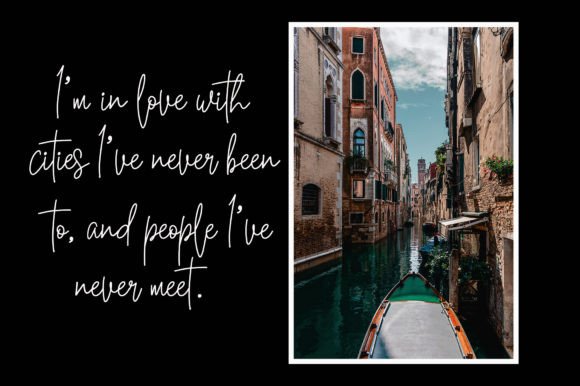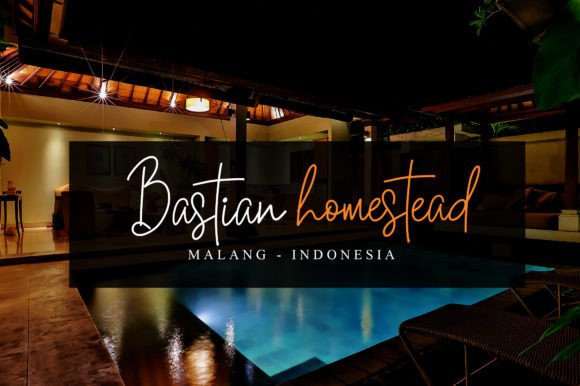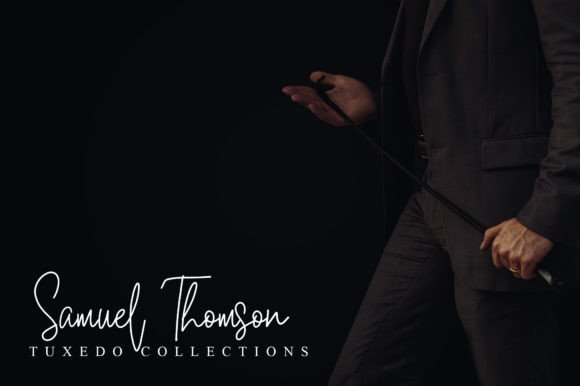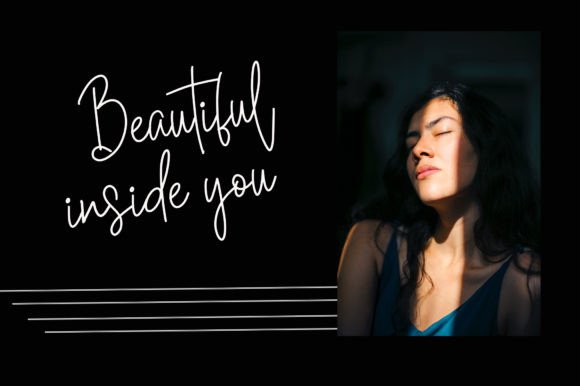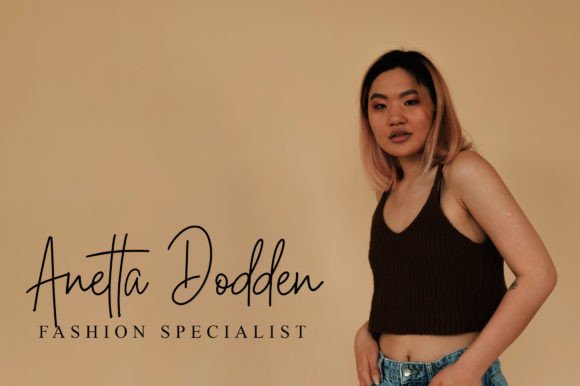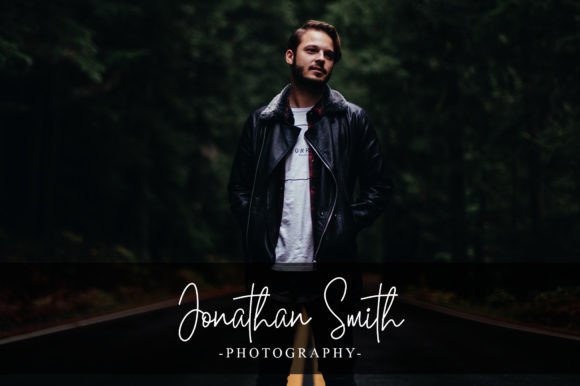
The Perfect Touch of Elegance: Discovering the Father Signature Font
As designers, we’ve all been there – staring at a blank canvas, struggling to find the perfect font to bring our vision to life. It’s that moment of frustration, followed by a spark of inspiration, when we stumble upon the perfect font that elevates our design from good to great. For me, that moment came when I discovered the Father Signature Font.
This delicate, elegant, and flowing handwritten font is a game-changer for designers. With its chic and well-designed characters, it’s the perfect addition to any design project. Whether you’re creating a wedding invitation, a branding package, or a marketing campaign, the Father Signature Font is sure to bring a touch of sophistication and class. And with its PUA encoding, accessing all of the glyphs and swashes is a breeze!
Father Signature Font Key Features
- Font Style: A unique, handwritten font designed to resemble a father’s signature, conveying warmth and familiarity.
- Characteristics: Features a mix of cursive and print elements, with subtle imperfections and variations that evoke a sense of authenticity and personality.
- Language Support: Supports a wide range of languages, including Latin, Cyrillic, and Greek alphabets, making it a versatile font for global designs.
Design Review: Father Signature Font
As a designer, I’ve had the chance to work with the Father Signature Font, and here’s my honest review.
- Unique Character: The Father Signature Font has a distinct, handwritten feel that sets it apart from other script fonts. It’s perfect for adding a personal touch to designs.
- Legibility: Despite its cursive nature, the font is surprisingly legible, making it suitable for a wide range of applications.
- Expressive: The font’s irregularities and flourishes make it an excellent choice for conveying emotions and creativity in designs.
- Lack of Consistency: The font’s uneven letterforms and inconsistent spacing can make it challenging to work with, especially for long blocks of text.
- Not Ideal for Body Text: Due to its decorative nature, the Father Signature Font may not be the best choice for large bodies of text or everyday use.
The Father Signature Font is a beautiful, expressive typeface that shines in the right contexts. While it may have its limitations, it’s an excellent choice for designers looking to add a personal touch or create eye-catching headlines. Just be mindful of its limitations when working with long texts or everyday use.
Use Father Signature Font for personal or family-related designs, such as invitations, greeting cards, or photo albums.
Combine the font with other design elements, such as images or graphics, to create a unique and personalized look.
Experiment with different font sizes and styles to achieve the desired effect.
Birth announcements and baby shower invitations
Family photo albums and scrapbooks
Personalized gifts and mementos
Q: What is the character set for the Father Signature Font?
The Father Signature Font includes a comprehensive character set, including uppercase and lowercase letters, numbers, punctuation marks, and special characters. This ensures you have everything you need to create professional-looking designs with the font.